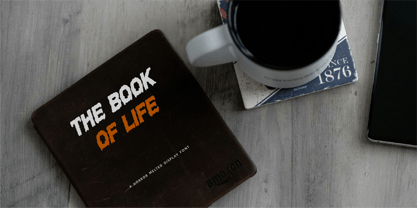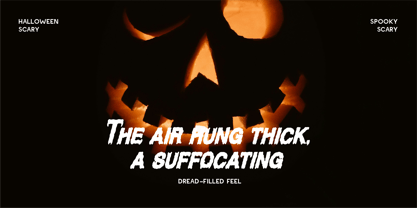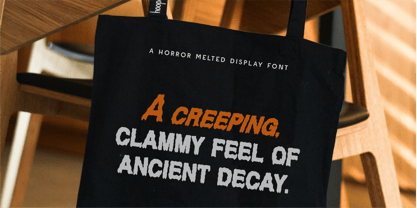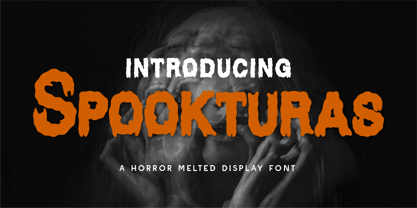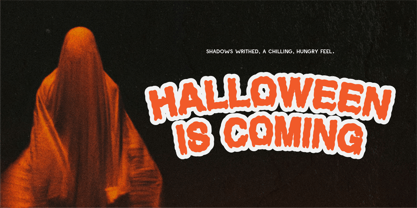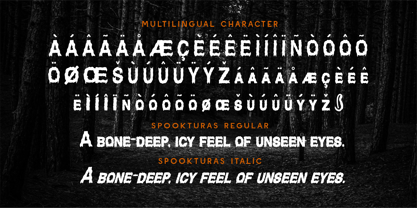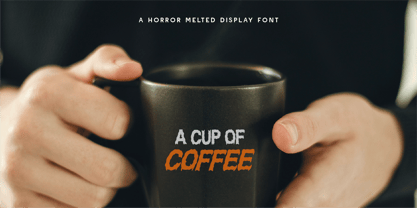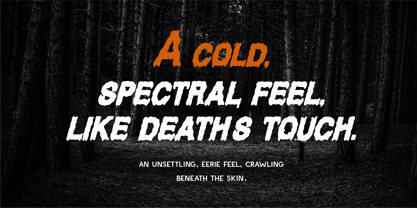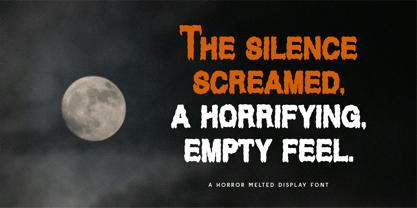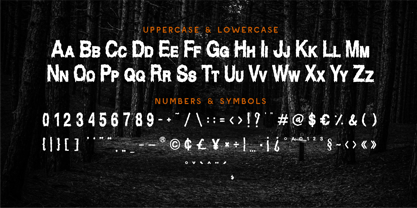
CF Spookturas
by Indotype
The CF Spookturas Font Family was designed by Gilang Mei Nugraha, Frederik Aristaputra and published by Indotype. CF Spookturas contains 2 styles and family package options.
Spookturas – A Dripping & Terrifying Horror Melted Display Font
Dare to disturb with Spookturas, a horror melted display font that oozes with fright and fear! With its dripping, deformed characters and unsettling texture, this font is crafted to send chills down your viewers’ spines. Whether it’s Halloween promos, horror posters, scary movie titles, eerie invitations, or haunted house branding, Spookturas delivers the perfect dose of terror.
Designed to look like it’s melting off the screen, this typeface evokes grunge, decay, and monstrous vibes, ideal for any design that dares to be dark, bold, and haunting.
Why Choose Spookturas?
🩸 Melting Horror Aesthetic: Perfect for Halloween, horror, and thriller themes.
👻 Creepy & Captivating: Oozing letterforms that grab attention and amplify suspense.
🕯 Ideal for Posters, Titles & Branding: Instantly sets a sinister tone.
🌍 Multilingual Support: Includes numbers, symbols, and extended character sets.
- Standard Character A-Z, a-z, 0-9, Punctuation & symbols
- Regular and Italic
Designers: Gilang Mei Nugraha, Frederik Aristaputra
Publisher: Indotype
Foundry: Indotype